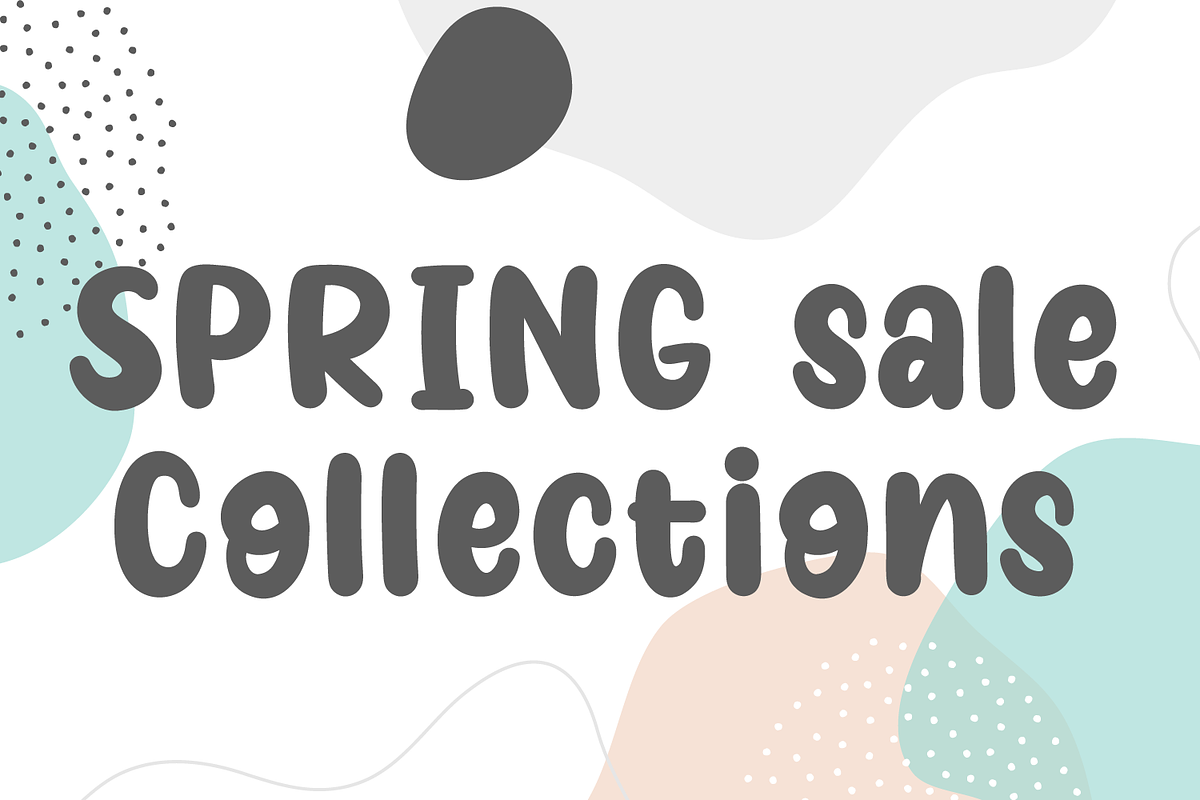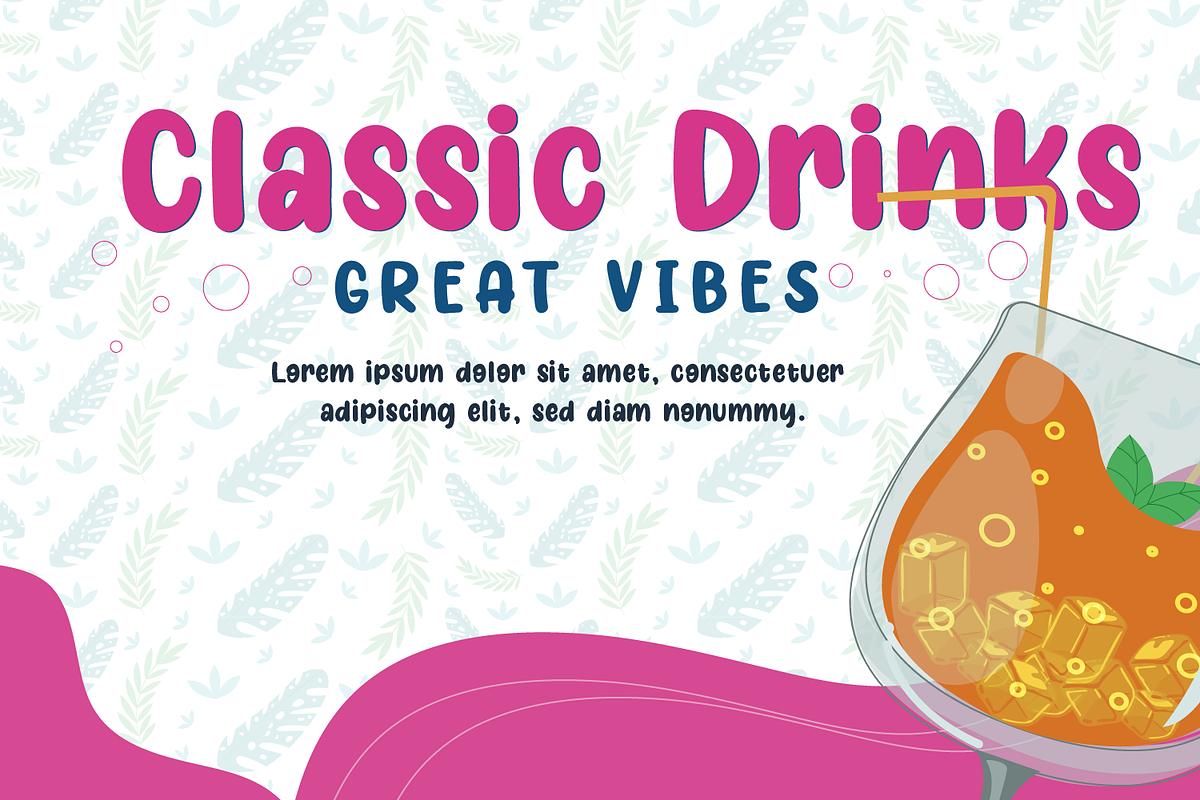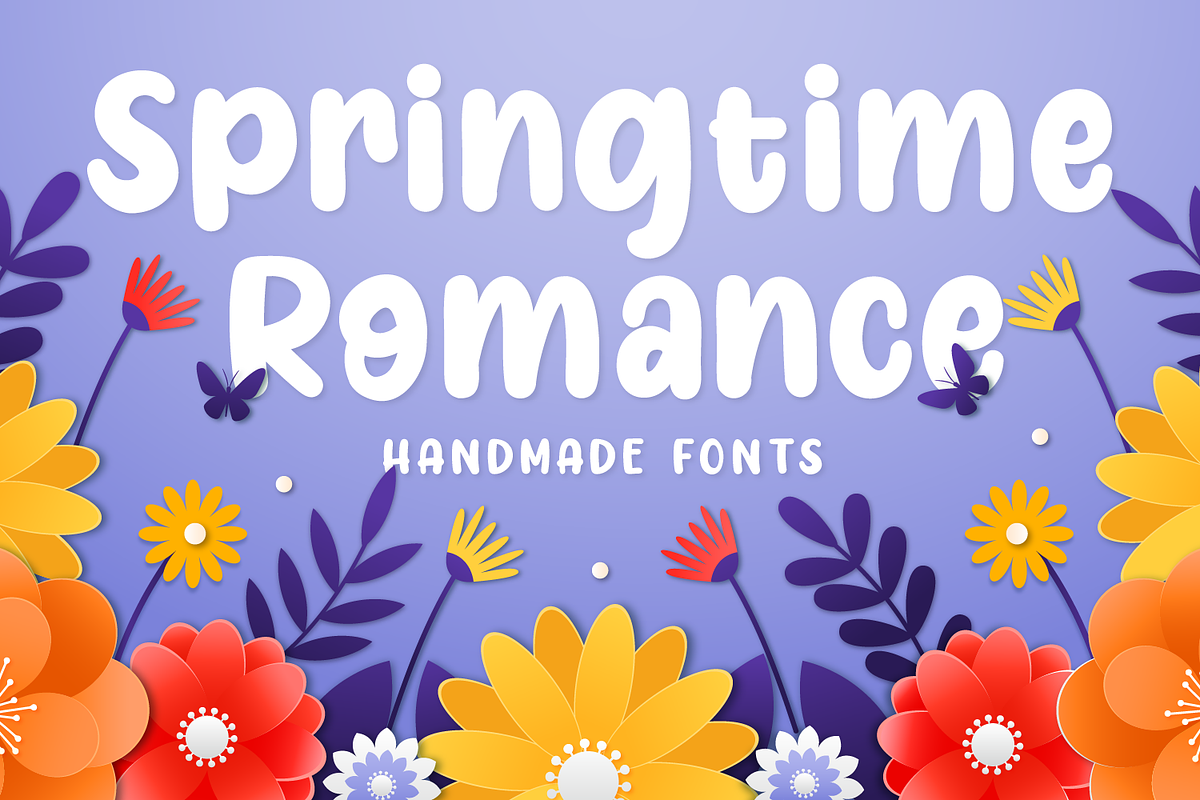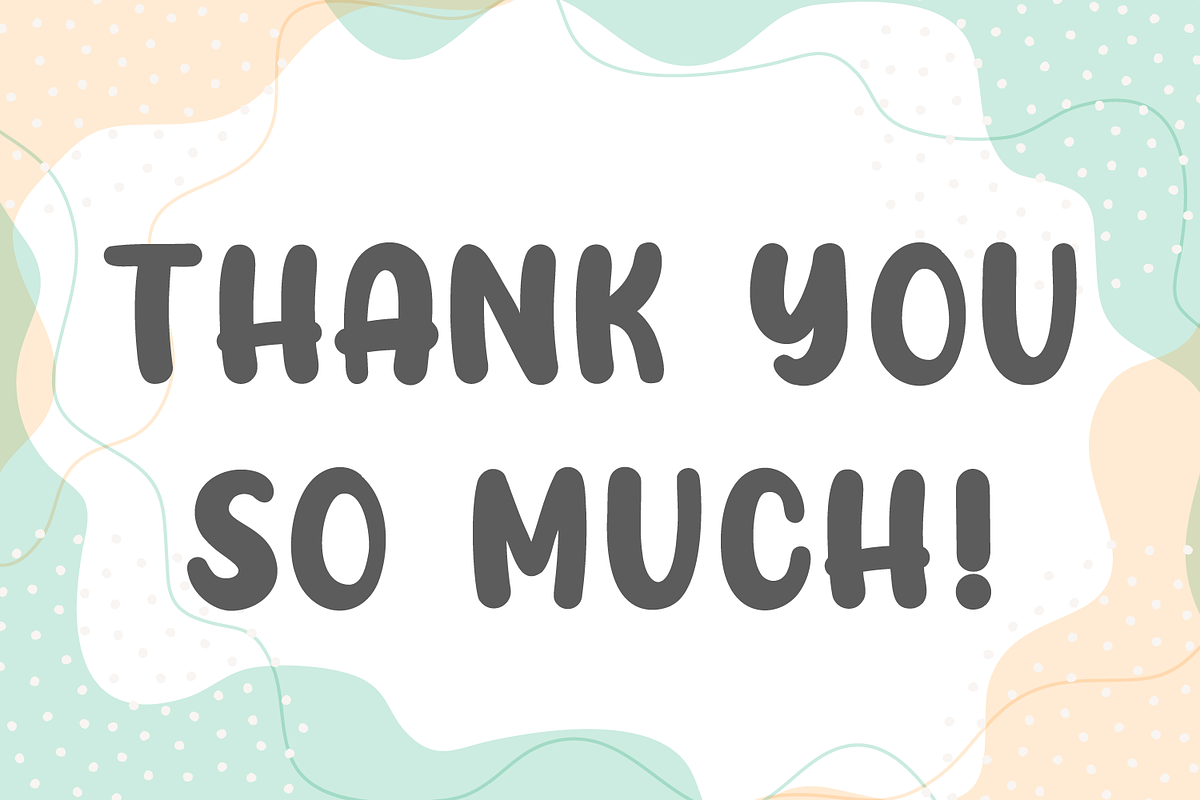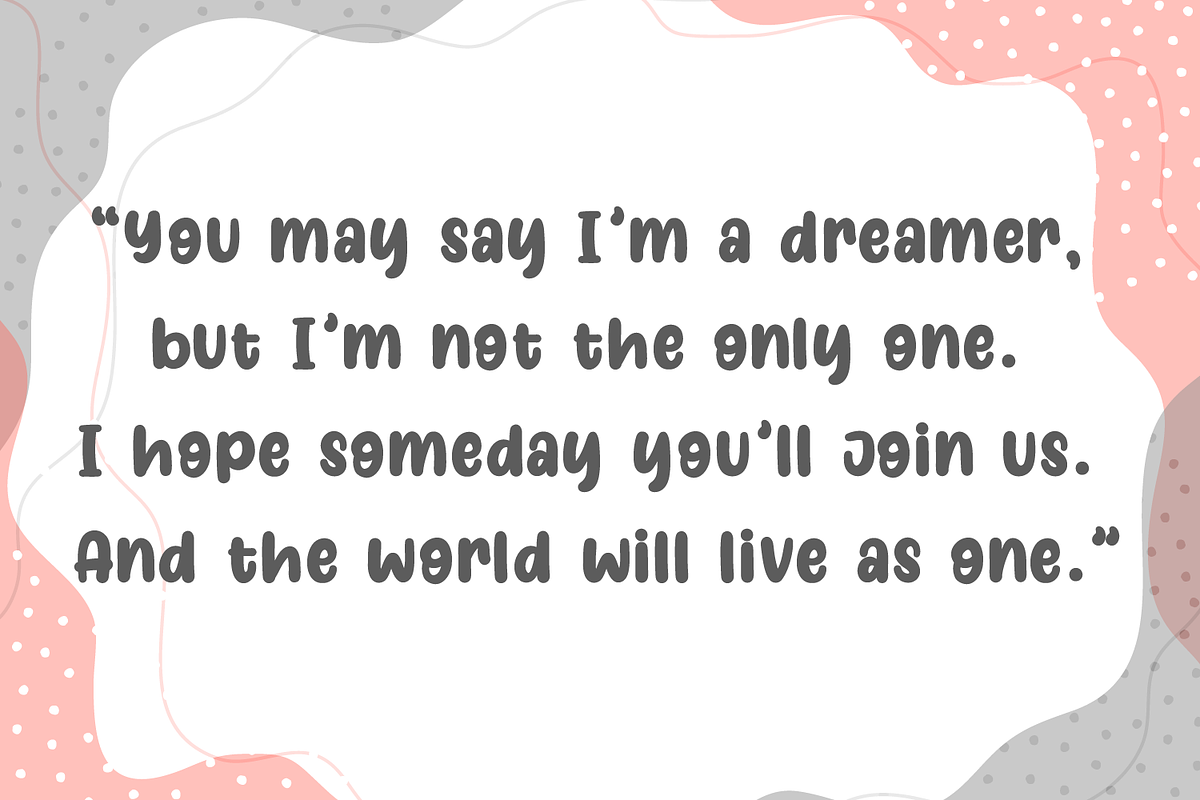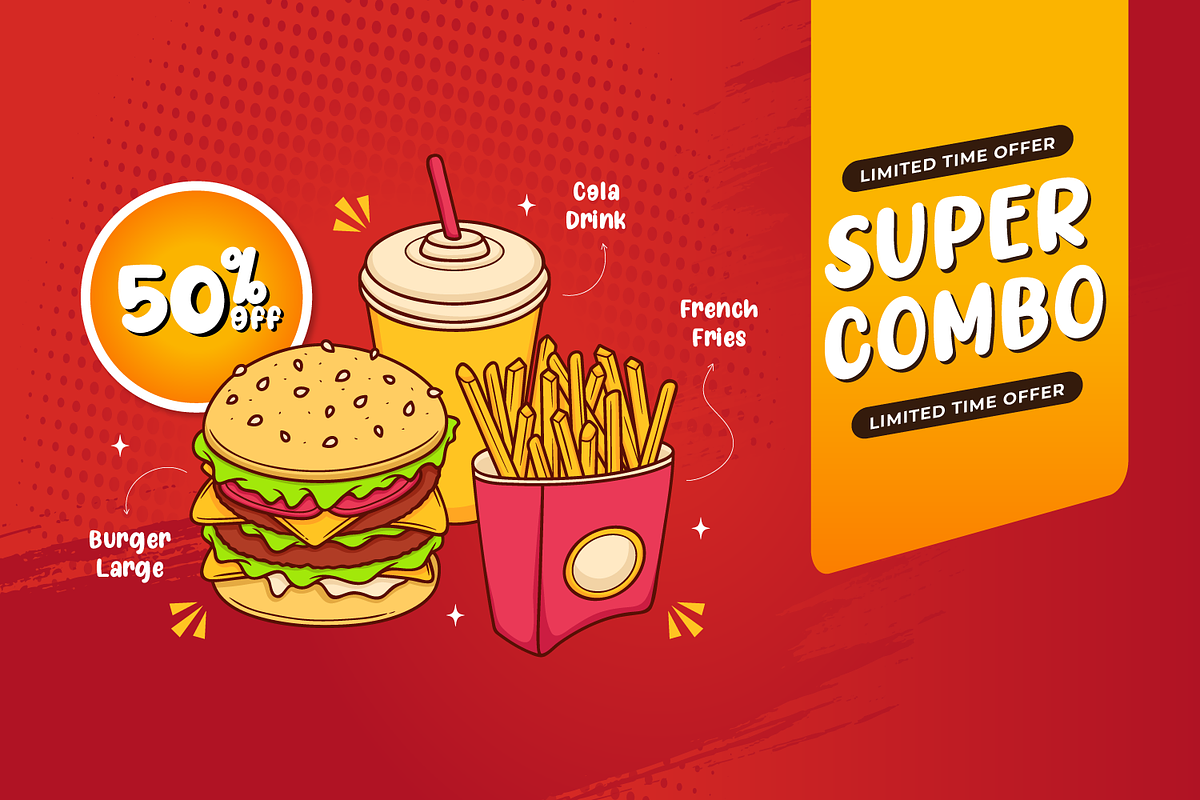
Springtime Romance
Hello, introducing the new hand made fonts
Springtime Romance
Springtime Romance is a great hand made font.
Made by marker, make your design looks stunning.
- European Multilinguals